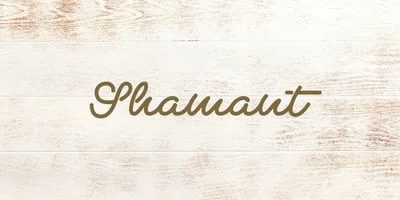
Shamant Font
Shamant Font is perfect for mystical design projects including spiritual wellness branding, holistic therapy centers, meditation studio logos, yoga instructor materials, crystal shop signage, alternative healing practices, metaphysical bookstore designs, mindfulness app interfaces, sacred geometry artwork, and conscious lifestyle brands that require ethereal typography with spiritual resonance and transformative energy.
What makes Shamant Font so exciting is its unique ability to channel ancient wisdom and spiritual energy through modern typography that creates an atmosphere of enlightenment and inner peace while maintaining contemporary functionality. This transcendent typeface features flowing letterforms, harmonious proportions, and subtle mystical elements that convey spiritual depth and consciousness, making it perfect for brands seeking to connect with audiences on a deeper, more meaningful level through transformative visual communication.
Shamant Font typically includes comprehensive font families with light, regular, medium, bold, and ornamental weights, plus matching italic styles, decorative alternates, and sacred symbols, providing designers with extensive tools to create spiritually resonant layouts and establish meaningful brand presence across various wellness and consciousness applications.
This enlightening Shamant Font offers creative professionals an exceptional foundation for projects requiring spiritual authenticity and conscious design aesthetics. Whether you're developing wellness center branding, meditation app interfaces, or conscious lifestyle materials, this font delivers transformative energy while ensuring clear communication and broad spiritual appeal. The mystical design characteristics and versatile weight options make it particularly valuable for wellness practitioners, spiritual teachers, and conscious brands seeking to communicate enlightenment, inner peace, and spiritual growth through typography that resonates with seekers and creates meaningful connections in the expanding consciousness marketplace.